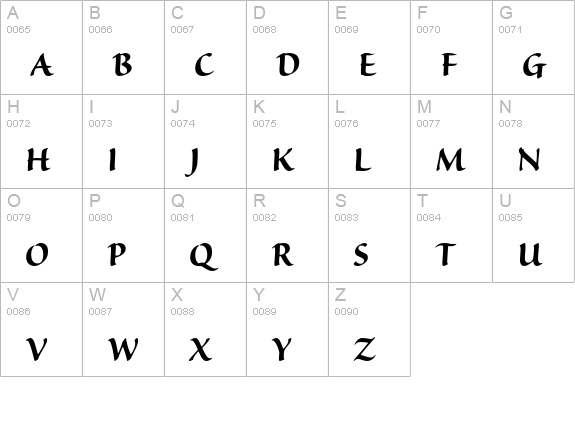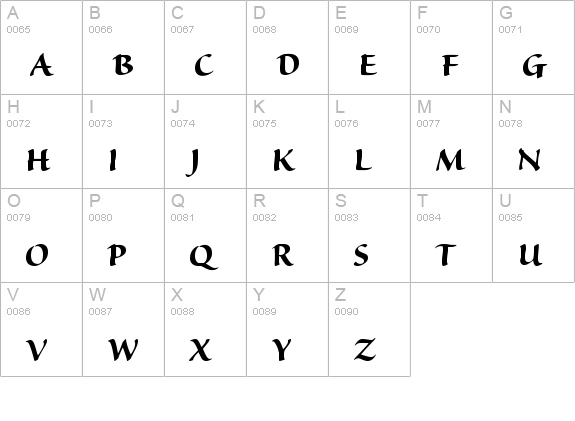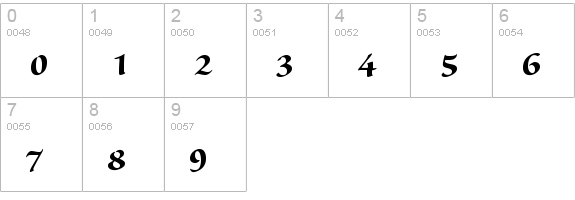
Sanvito Pro Bold Subhead Font Details
Sanvito Pro Bold Subhead is a strong, high-contrast variant in the Sanvito typeface family \xE2\x80\x94 well suited to headlines, attention-grabbing titles, and strong calls-to-action.
Sanvito Pro Bold Subhead is a versatile and modern font that adds a touch of sophistication to any design project. With its bold and distinctive letterforms, this font is perfect for creating eye-catching subheadings in print or digital media. Whether you're designing a magazine layout, a website, or a poster, Sanvito Pro Bold Subhead will make your text stand out with its strong presence. The font features clean and sharp lines that give it a contemporary look, while maintaining a high level of readability. The bold weight adds emphasis and visual impact, making it ideal for titles, headings, and subheadings. Its versatility makes it suitable for a wide range of design styles, from corporate to creative. One of the best things about Sanvito Pro Bold Subhead is that it is freely available to download at FontsMarket.com. This means that you can easily access and use this font in your projects without any restrictions. Whether you're a professional designer or a hobbyist, this font offers you the opportunity to enhance your creations with a high-quality typeface, without having to spend a dime. So why wait? Download Sanvito Pro Bold Subhead now and take your designs to the next level. With its stylish and impactful appearance, this font will surely make a lasting impression on your audience. Don't miss out on the opportunity to add this versatile and free font to your collection. Get it today at FontsMarket.com and let your creativity shine.